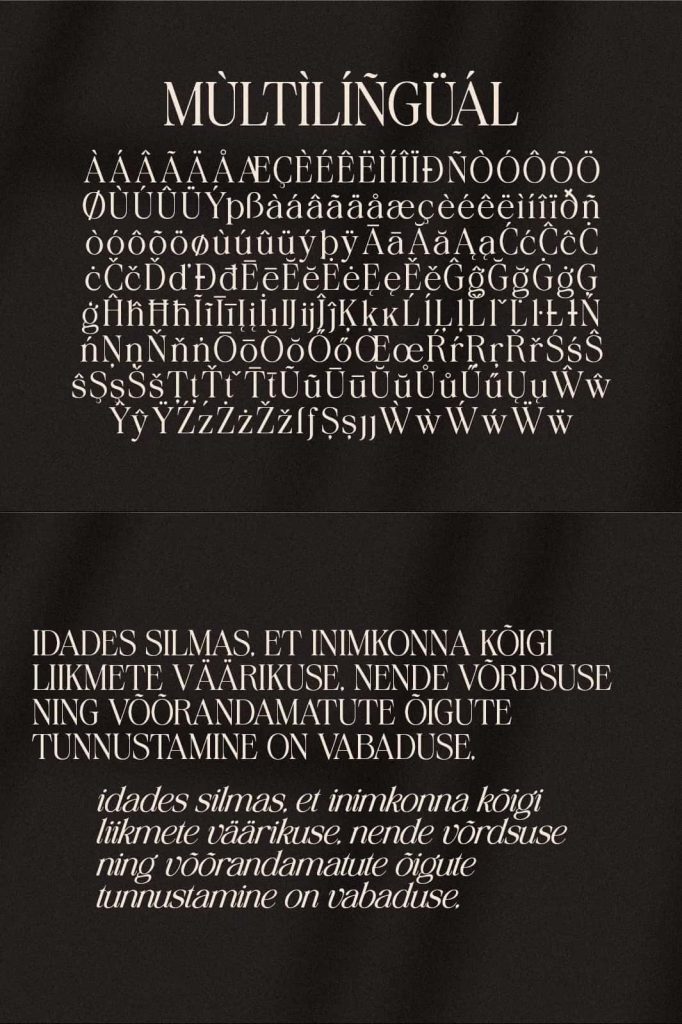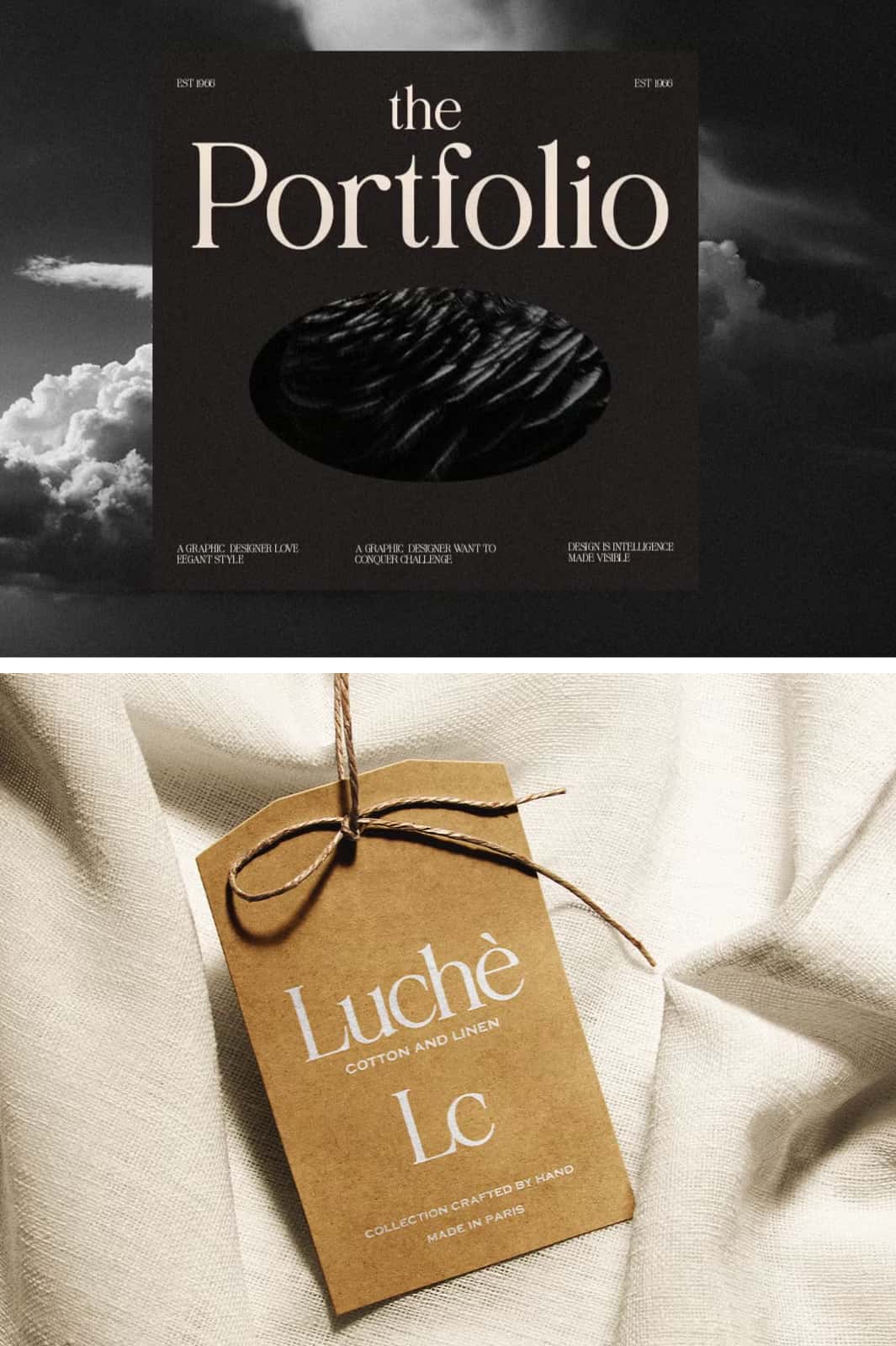
Heproyal | Luxury Font
Heproyal – Soft and Elegant Serif Font for Branding
Heproyal is a soft and elegant serif font created for designers who want to bring a refined, classy, and modern character to their creative projects. This sophisticated typeface combines gentle serif details with a contemporary appearance, creating a balanced design that feels both timeless and stylish.
With its smooth shapes and elegant proportions, Heproyal works especially well for branding and logo design. The font adds personality to visual identities without making them feel overly complicated. Its soft appearance helps brands communicate elegance, confidence, and creativity while maintaining a clean and professional presentation.
Elegant Serif Typeface with a Modern Character
Heproyal blends the traditional appeal of serif typography with a fresh and modern design approach. Its carefully shaped letterforms create a polished appearance that can elevate a wide range of visual materials. Designers can use the font to create memorable headlines, sophisticated brand names, stylish logos, and attractive promotional graphics.
The soft serif structure gives Heproyal a distinctive personality. Instead of relying on heavy or aggressive shapes, the typeface uses elegant curves and refined details to create a welcoming visual impression. This makes it an excellent choice for brands that want to look luxurious, fashionable, creative, or approachable.
Perfect for Branding and Logo Design
Heproyal performs particularly well in branding projects. A strong typeface can help a business establish a recognizable visual identity, and Heproyal provides the elegant foundation needed for sophisticated brand designs. Use it for company names, wordmarks, product names, boutique logos, personal brands, and creative business identities.
The font also works beautifully when designers combine it with simple symbols, minimal layouts, or complementary typefaces. Its elegant appearance allows the typography to become the main visual element while keeping the overall composition clean and professional.
Ideal for Fashion and Beauty Brands
The refined appearance of Heproyal makes it a natural choice for fashion, beauty, skincare, jewelry, cosmetics, and lifestyle brands. Its classy serif details can create a premium impression on logos, packaging, labels, advertisements, and social media graphics.
Great for Editorial and Creative Projects
Beyond branding, Heproyal can add sophistication to editorial designs. Use it for magazine titles, book covers, invitations, posters, quotes, headings, and promotional materials. Its modern serif style helps create a strong visual hierarchy while maintaining an elegant aesthetic.
Versatile Typography for Creative Designers
Heproyal offers flexibility across different design applications. Designers can use the typeface for large headlines, elegant titles, short phrases, logos, and decorative typography. The soft character also makes it suitable for projects that require a balance between classic typography and contemporary design.
Whether you are developing a complete brand identity or creating a single promotional graphic, Heproyal can help establish a sophisticated visual tone. Experiment with different sizes, spacing, layouts, and combinations to create unique results that match your project’s personality.
Why Choose Heproyal?
• Soft and elegant serif letterforms
• Classy and modern visual style
• Excellent choice for branding projects
• Suitable for professional logo designs
• Works well with fashion and beauty identities
• Useful for editorial and promotional graphics
• Creates a refined and sophisticated impression
• Easy to incorporate into modern design compositions
Create a Sophisticated Brand Identity
Typography plays an important role in shaping how people perceive a brand. Heproyal gives designers an elegant tool for creating identities that feel polished, memorable, and contemporary. Its soft serif details can help transform simple words into visually appealing brand elements.
Use Heproyal when you want your design to communicate elegance without sacrificing modernity. From boutique logos to premium product packaging, this versatile serif font can adapt to many creative directions and help your projects achieve a distinctive professional appearance.
Heproyal Font for Modern Design Projects
Choose Heproyal for projects that require a combination of softness, elegance, and modern sophistication. Its carefully crafted serif style makes it a valuable addition to a designer’s font collection, especially for branding, logo design, fashion, beauty, editorial, packaging, and lifestyle projects.
With Heproyal, you can create typography that feels refined yet approachable, classic yet contemporary. Let its elegant letterforms become the foundation of a memorable visual identity and bring a sophisticated touch to your next creative project.